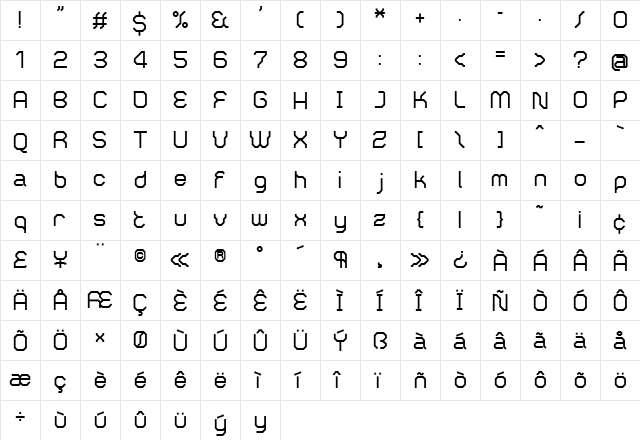
Zero Bold Font Preview
Zero Bold
Zero Bold Font Details
Design Context for Zero Typeface
Zero is a composed and adaptable typeface that performs quietly and consistently across a wide range of design contexts. The heavy weight commands attention and anchors typographic hierarchies.